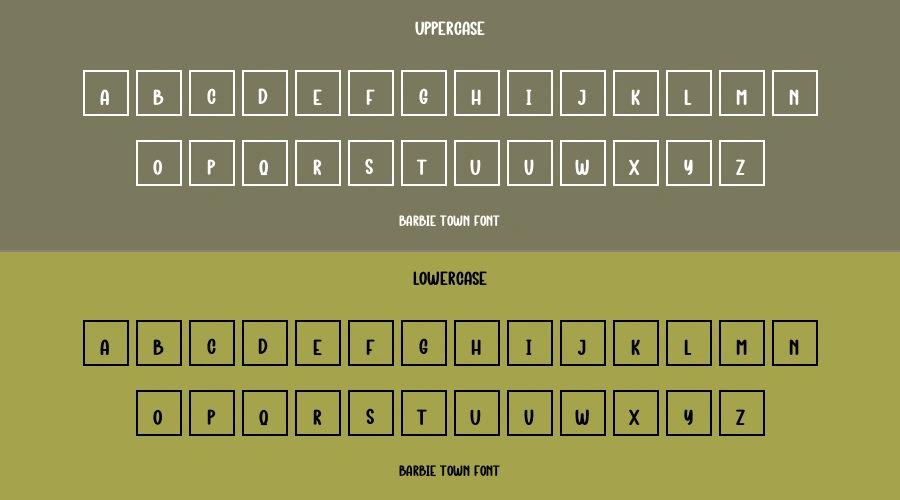
About Barbie Town Font
Designed with precision, Barbie Town Font merges width contrast with recall value in every character. This versatility makes it particularly effective for ceremonial invitations, where precision and technical sophistication directly impact communication quality. Each letterform demonstrates meticulous craftsmanship.
Technical excellence shines through elements like ball terminals and careful spacing, enhancing typographic versatility. In creative titles settings, Barbie Town Font proves its worth through superior kerning accuracy. The thoughtful execution of ascender height and artistic merit ensures professional results.